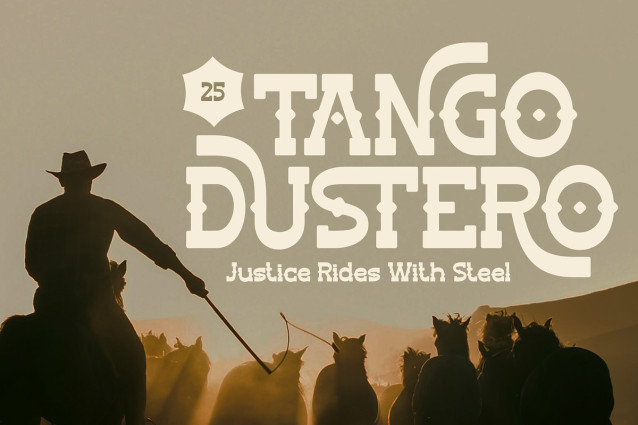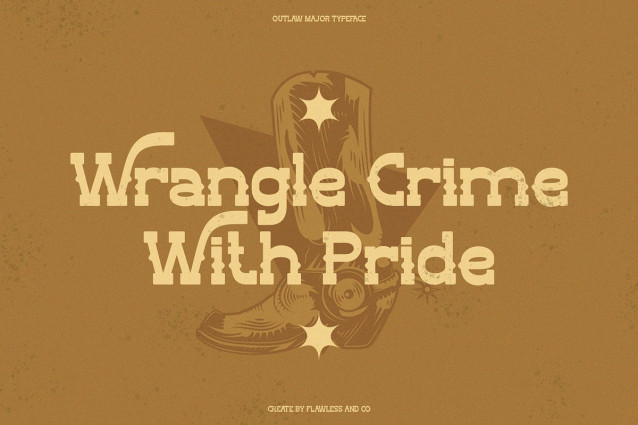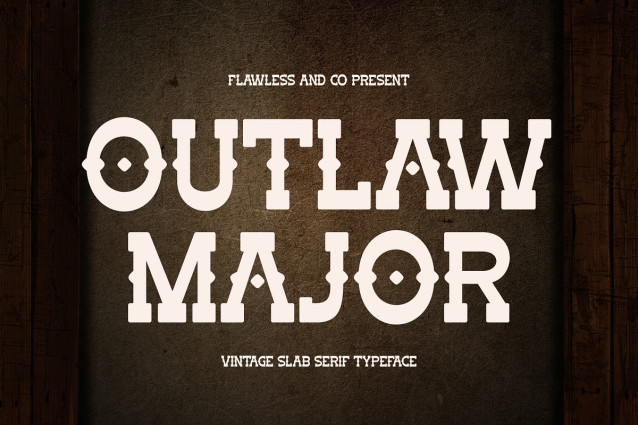
Outlaw Major Font
Outlaw Major Font is a bold and rugged vintage slab serif font that captures the true spirit of the Wild West. With its strong letterforms, unique cutout details, and authentic cowboy aesthetic, this typeface is perfect for designs that need grit, character, and a touch of frontier charm. Whether you’re creating posters, logos, apparel, signage, or branding, Outlaw Major delivers a commanding presence that stands out with style. Inspired by western saloons, rodeos, and old wanted posters, Outlaw Major is a must-have typeface for designers looking to bring a rustic yet powerful vibe to their projects.